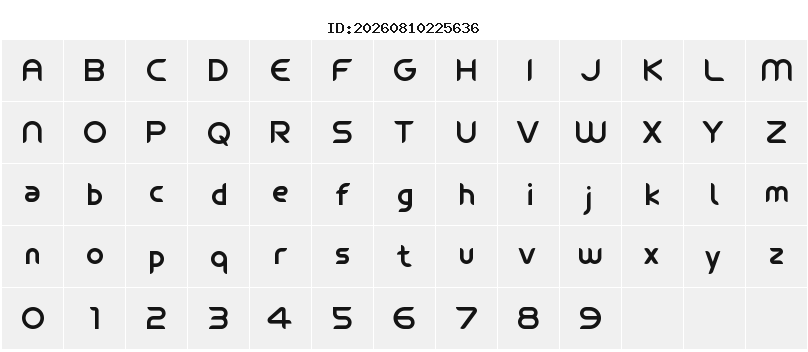
reGermany2006 Preview
• Font Name: reGermany2006
• Font ID: Friendly Football Fun
• Full Font Name: reGermany2006
• Version: Reconstruct from FIFA-World Cup Germany 2006 Official DecorativeFont
• PostScript Name: reGermany2006
• Designer: MAHARDHIKA DWI ATMAJA
About reGermany2006.ttf
reGermany2006.ttf is a modern, elegant sans-serif font designed for ultimate readability and visual harmony. Perfect for branding, headlines, web design, and print materials.